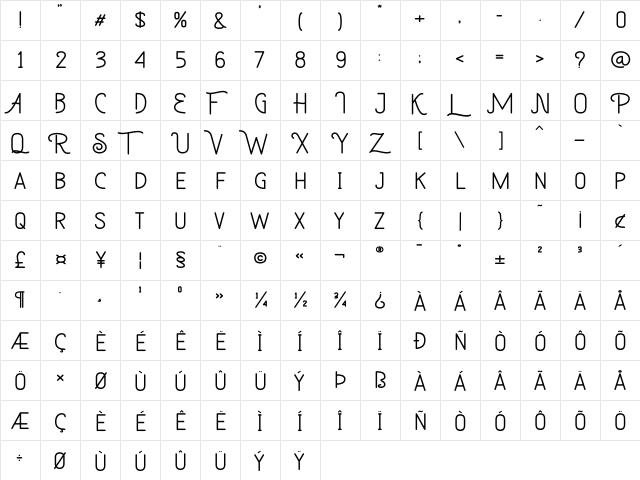
Western Retro Regular
| Designer | Muhammad Sirojuddin |
Design Context for Western Retro Typeface
Western Retro echoes the hand-painted signage and woodblock typography of the American frontier, with a warm, rugged personality.
Perfect for barbecue restaurants, country music branding, vintage poster design, and rustic packaging.
Font Pairing: Combine Western Retro with a simple slab or neutral sans — period-accurate companions reinforce the vintage feel without competing for attention.
Pro Tip: Pair Western Retro with aged textures or distressed backgrounds to amplify its vintage personality.